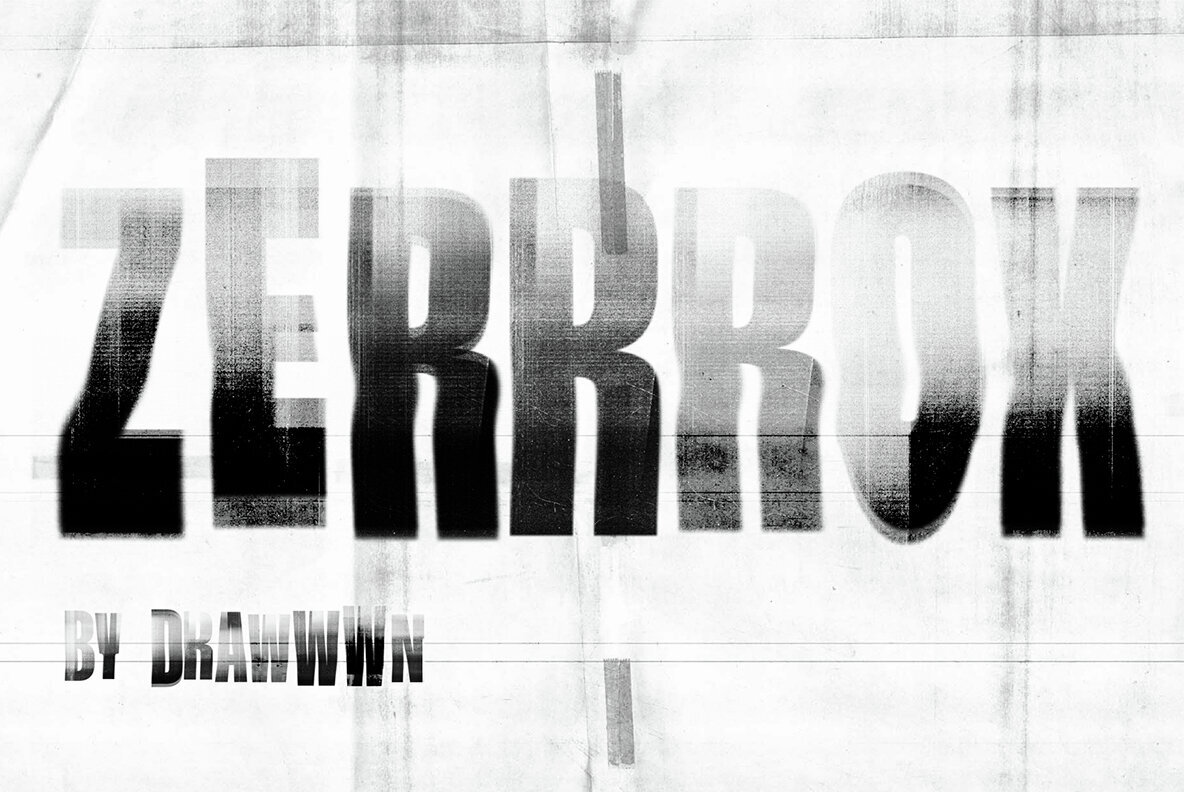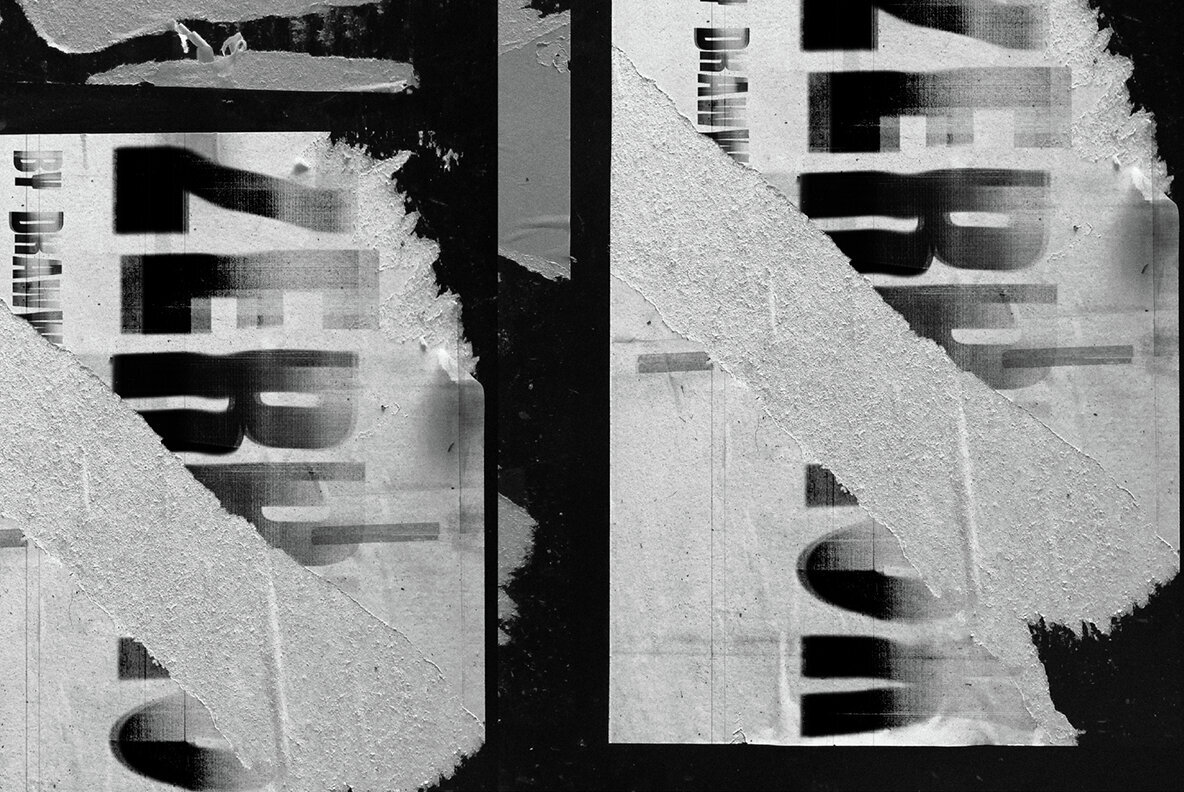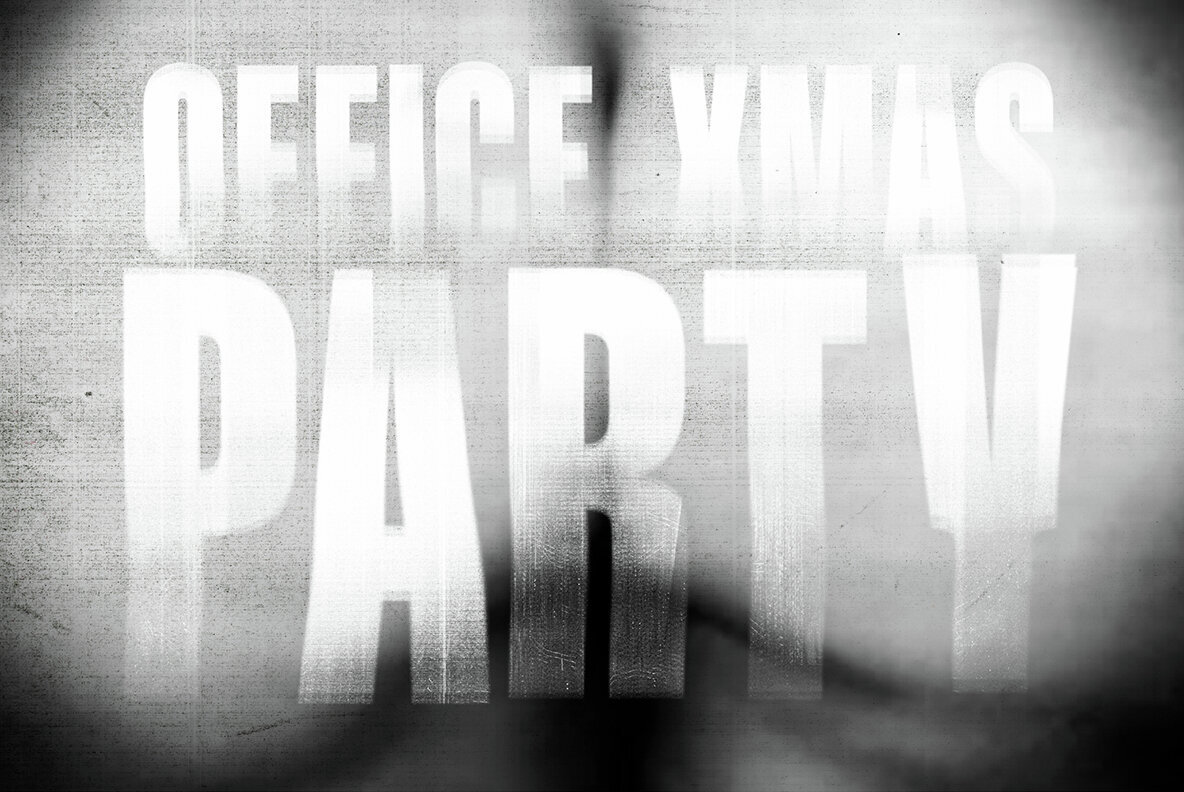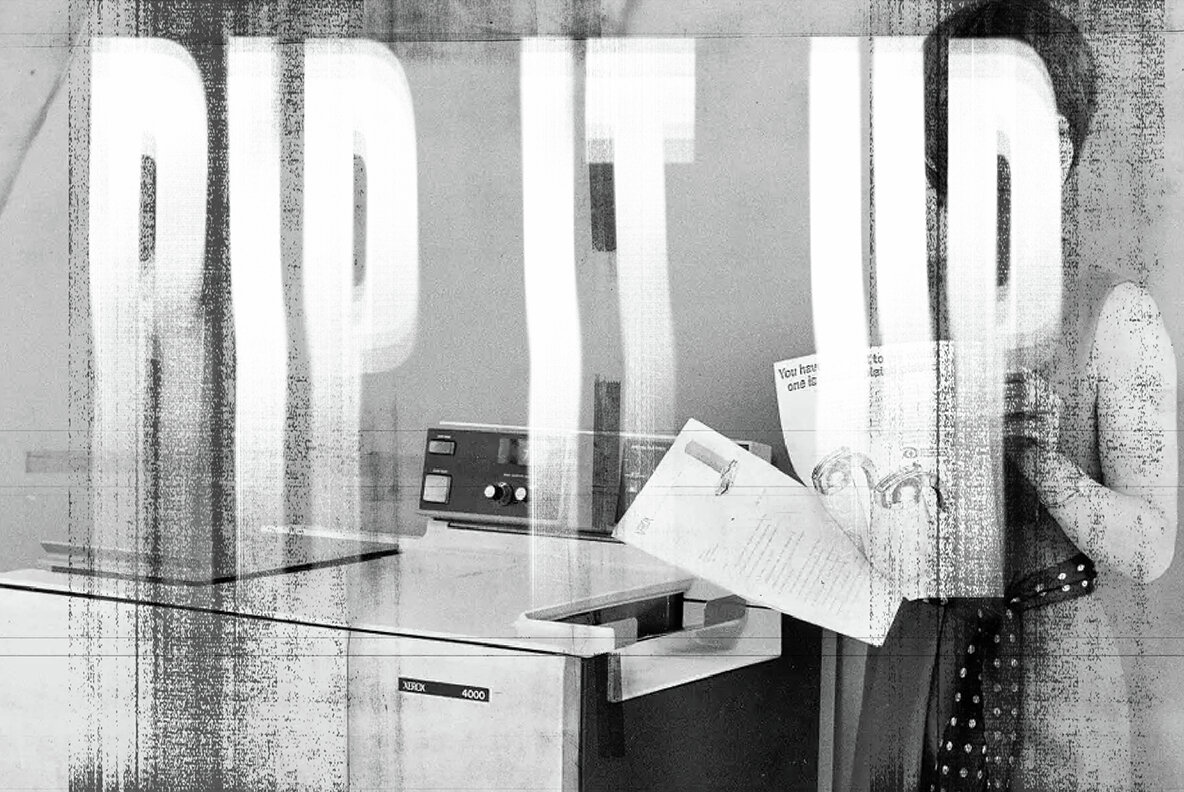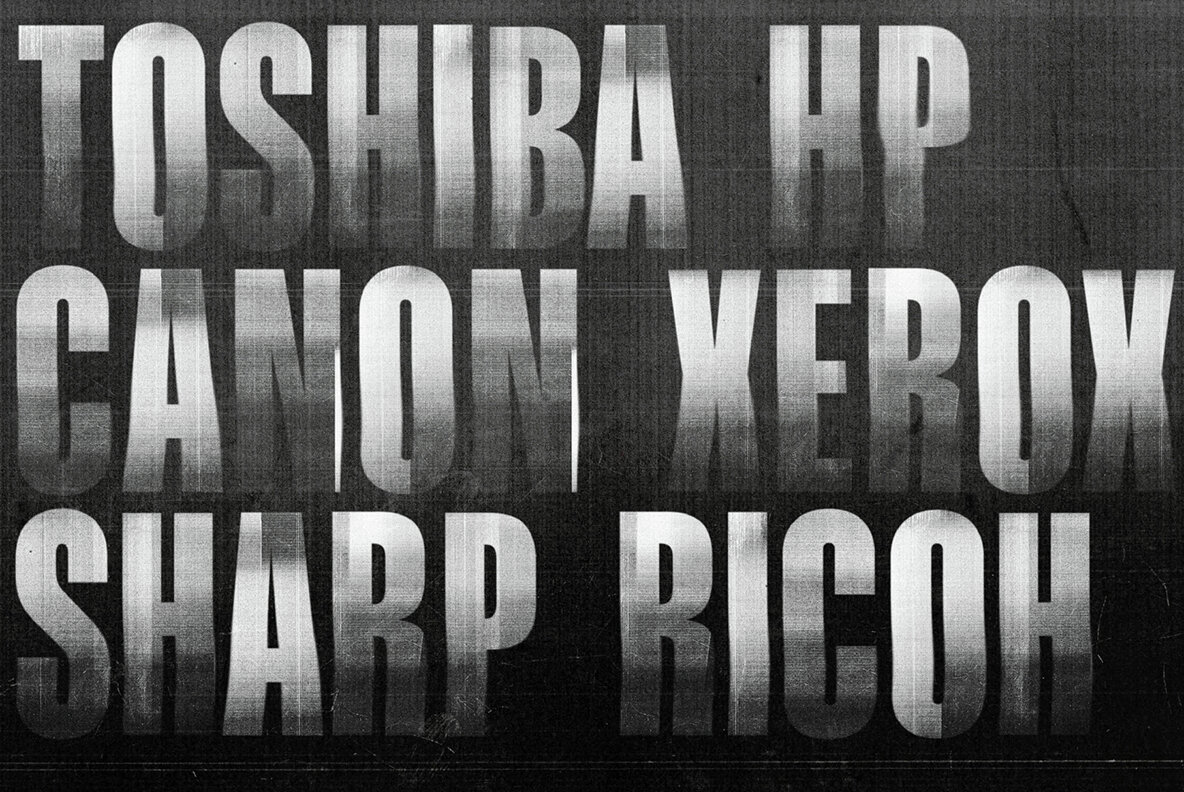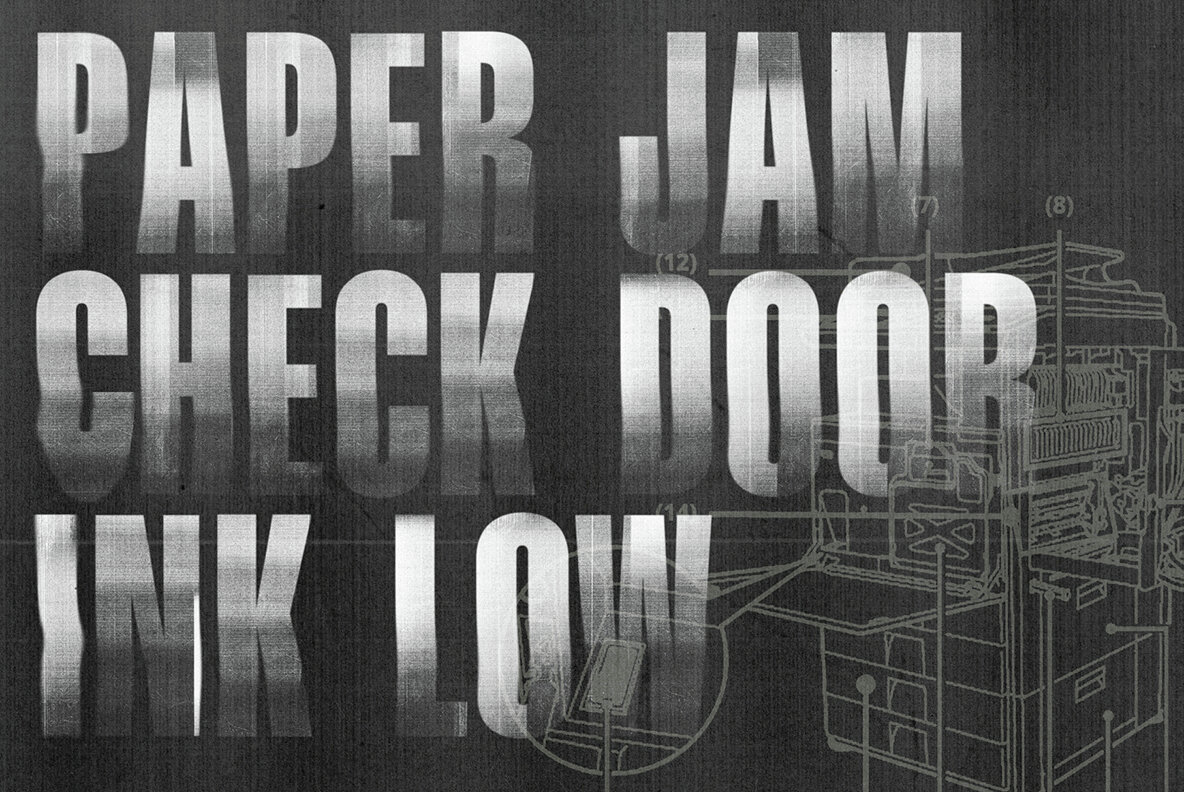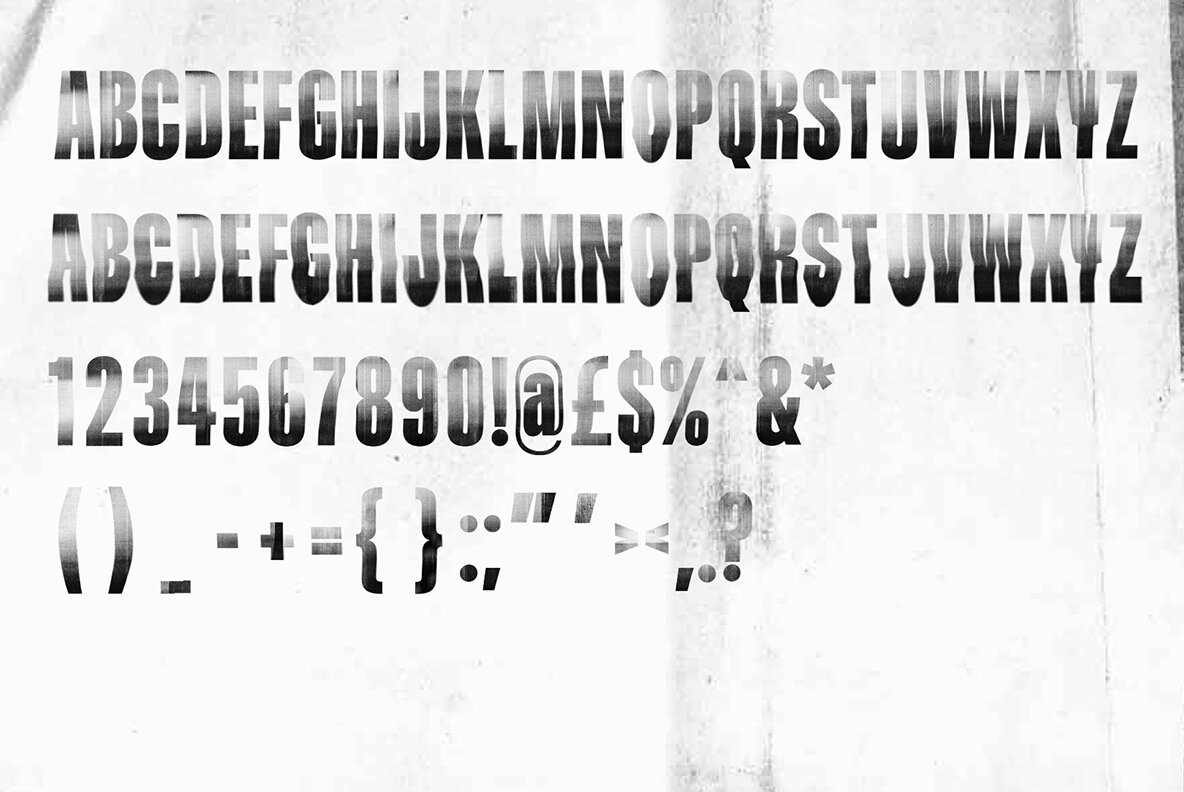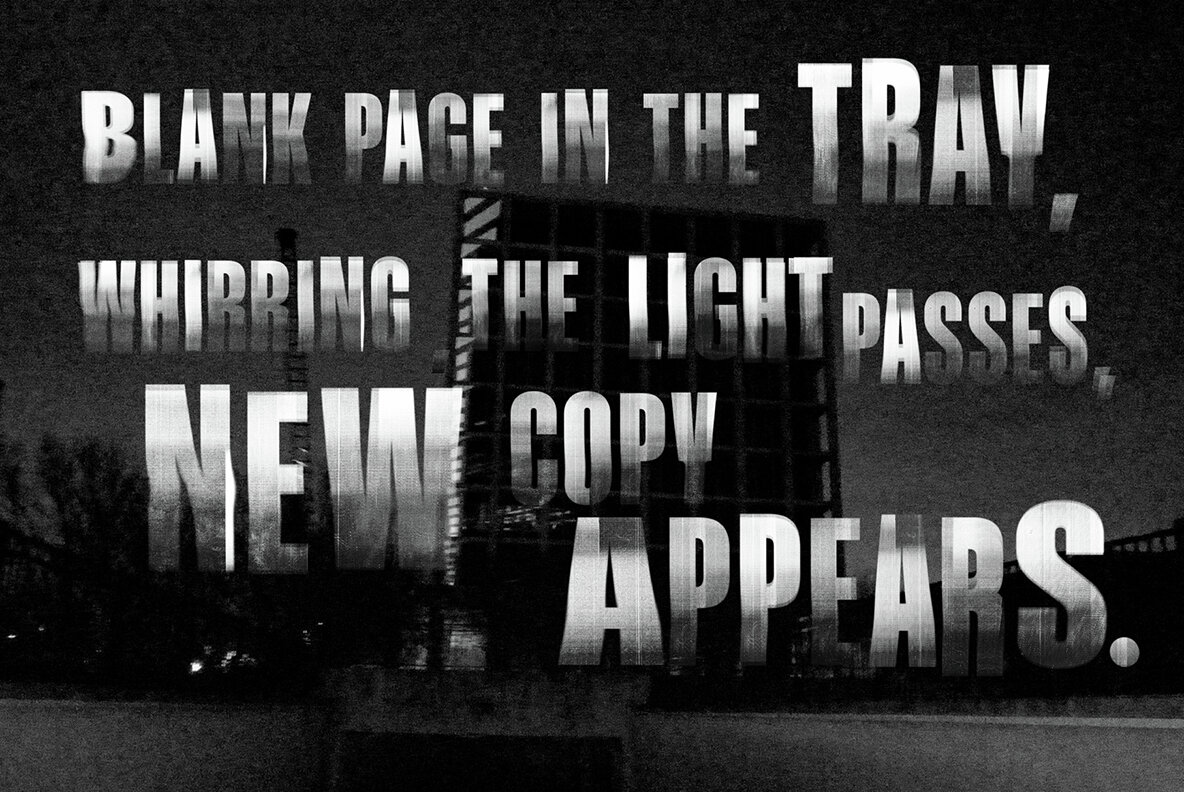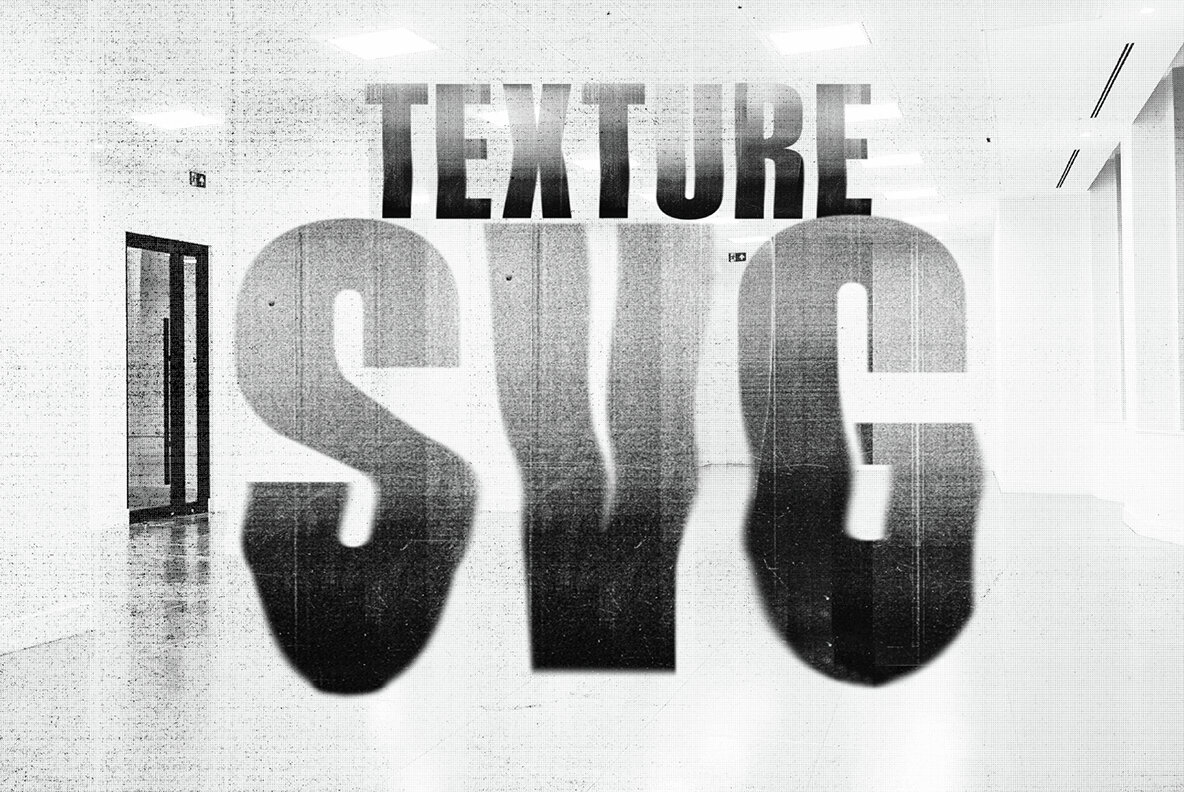
Zerrrox SVG Font
Zerrrox isn’t just a font—it’s a mood. It captures the chaotic charm of a photocopier on its last legs, with every letter carrying the scars of toner smudges, uneven ink, and jagged edges. This distressed SVG typeface brings authentic texture straight into your design, making it perfect for projects that demand grit and imperfection. Think punk zines, DIY posters, album covers, or experimental branding—anywhere you want to break away from polished, sterile typography. Its raw aesthetic adds personality and narrative, suggesting urgency, rebellion, and a tactile, analog feel in a digital world. Because it’s an SVG font, you’re not just getting outlines—you’re getting the full photocopy texture baked in. That means no extra grunge overlays or filters; the character comes built-in. Pair it with high-contrast color schemes, halftone patterns, and bold layouts for maximum impact.